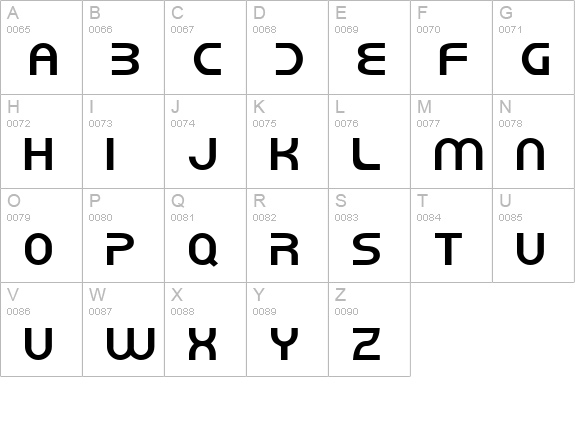
New World Vibes Font Details
Introducing the captivating New World Vibes font, a perfect blend of modern elegance and timeless charm. This unique typeface exudes a sense of wanderlust and adventure, making it ideal for a wide range of creative projects. With its intricate details and stylish flair, New World Vibes font is sure to make a statement and leave a lasting impression. What makes New World Vibes font even more special is that it is completely free to download at FontsMarket.com. Yes, you read that right - this stunning font is available for you to use in your designs without any cost. So whether you're working on branding, packaging, invitations, or any other project that requires a touch of sophistication, New World Vibes font is the perfect choice. Embrace the beauty and versatility of New World Vibes font, and let your creativity soar to new heights. Download it today and add a touch of magic to your designs!